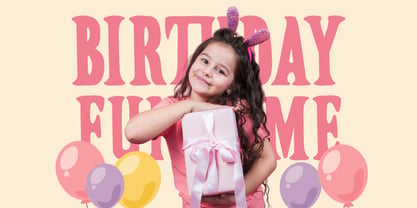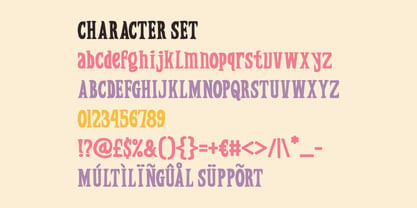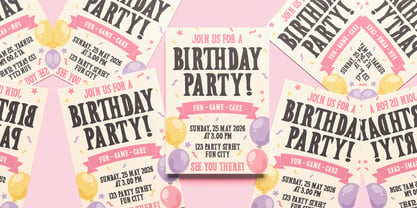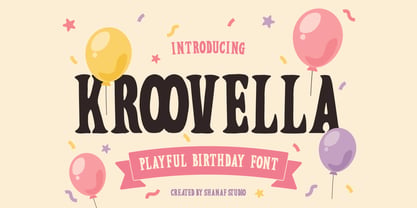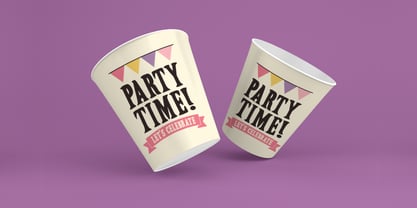
Kroovella
von Shanaf
Die Schriftfamilie Kroovella wurde von Yesie Erma Yunita entworfen und von Shanaf veröffentlicht. Kroovella enthält 1 Stile. Mehr über diese Familie
Kroovella Playful Birthday Font brings cheerful energy through bold decorative letterforms and a lively personality. The characters feature a strong vertical structure with medium-to-heavy weight, creating excellent visibility for branding and headline applications. Each letter combines rounded curves, playful proportions, and soft decorative details that create a friendly and welcoming appearance. The font balances classic celebration aesthetics with a fresh commercial appeal. Several characters include subtle shape variations that add movement and excitement across words and titles. This approach helps logos and headlines feel engaging while maintaining clear readability. Kroovella Playful Birthday Font works perfectly for logo design, branding, advertising, packaging, posters, invitations, greeting cards, party announcements, event materials, stickers, book covers, magazine titles, social media graphics, website banners, crafting projects, promotional products, educational materials, and entertainment campaigns. The overall character feels joyful, festive, and approachable, making it ideal for designs that need warmth, excitement, and memorable visual impact.
The font fits a broad range of businesses and products connected to celebrations, family activities, and entertainment. It works naturally for birthday businesses, party organizers, event planners, toy stores, kids entertainment centers, play zones, family attractions, gift shops, candy products, bakery products, dessert businesses, ice cream brands, snack products, beverage products, holiday campaigns, school events, daycare promotions, educational projects, and creative workshops. Beyond birthday themes, the font supports brands that focus on fun experiences and positive emotions. It performs well on product packaging, promotional advertisements, business logos, event posters, invitation cards, party supplies, souvenir products, greeting cards, and seasonal campaigns. The decorative shapes help create strong shelf presence and memorable brand recognition. Kroovella Playful Birthday Font also suits businesses targeting families, children, and community events where friendliness and excitement play an important role. Its expressive appearance helps transform ordinary messages into engaging visual communication that attracts attention across both print and digital media.